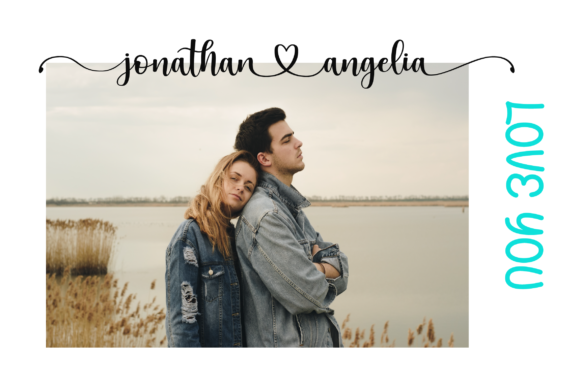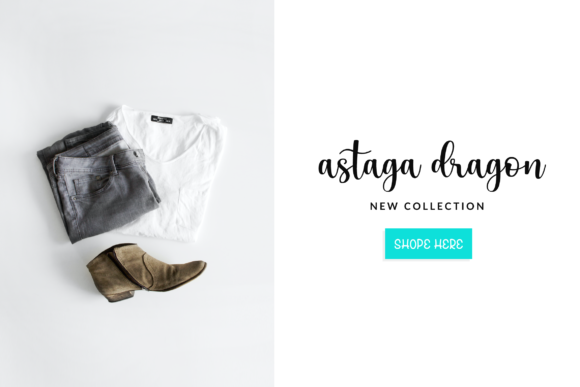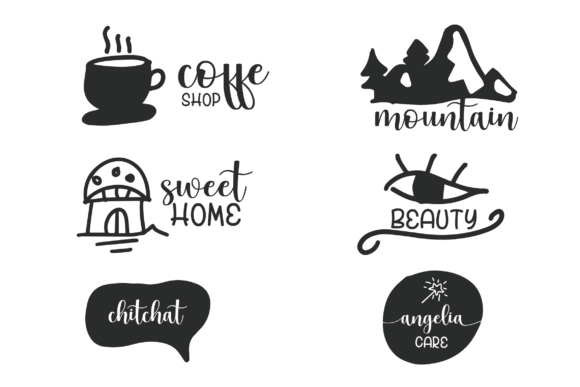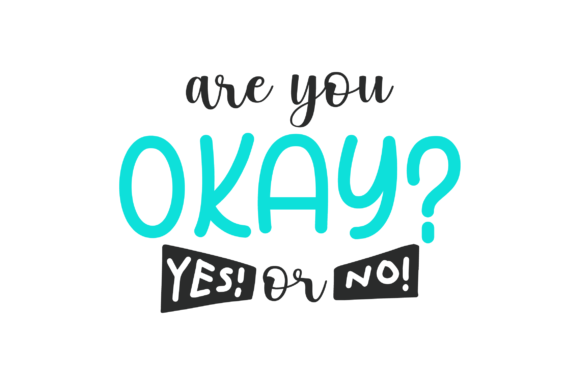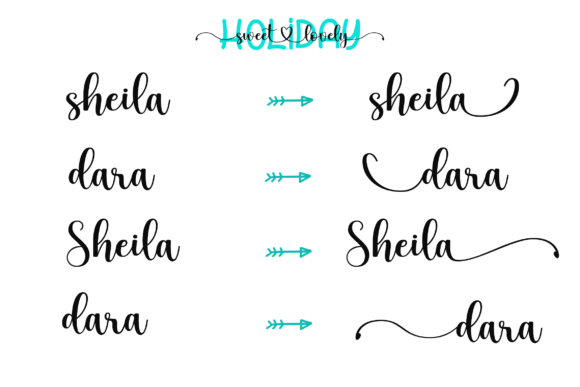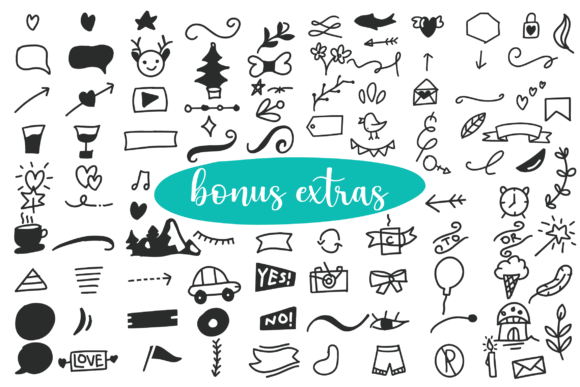
Introduction to Holiday Sweet Lovely Font
Have you ever stumbled upon the perfect font for a design project, only to find yourself spending hours tweaking it to fit your vision? I’ve been there too. But what if I told you that there’s a font that not only fits your design perfectly but elevates it to new heights? Enter the Holiday Sweet Lovely Font, a stunning duo font that’s about to become your go-to design resource.
This beautifully crafted font is a game-changer for any creative project, from wedding invitations to business cards. With its unique, handwritten touch, it adds a personal and elegant feel to any design. And the best part? It’s incredibly versatile, making it perfect for a wide range of designs. Whether you’re a seasoned designer or just starting out, the Holiday Sweet Lovely Font is a valuable addition to your design arsenal.
Key Features of Holiday Sweet Lovely Font
- High-quality, elegant design perfect for creative projects and holiday-themed designs.
- Comes with a transparent background, allowing for easy customization and integration into various design elements.
- Features a unique, hand-drawn style with intricate details and flourishes, making it stand out from other fonts.
Honest Review: Holiday Sweet Lovely Font
I recently had the chance to work with the Holiday Sweet Lovely Font for a creative project, and I must say it was a delightful experience. The font is perfect for those who want to add a touch of sweetness and festivity to their designs.
What works well with this font is its versatility. It’s suitable for a wide range of creative projects, from holiday greeting cards to social media graphics. The font also comes in high quality, making it perfect for printing.
- ✨ High-quality design
- ✨ Suitable for various creative projects
- ✨ Comes with transparent background option
However, there are a few limitations to consider. The font is limited to a specific theme, which might not be suitable for all types of projects. Additionally, the font does not come with a large character set, which could be a drawback for those who need to use special characters.
⚠️ Limited theme suitability
⚠️ Limited character set
Overall, I was impressed with the Holiday Sweet Lovely Font and would definitely recommend it to those who are looking for a high-quality design resource for their holiday-themed projects.
Can I modify the Holiday Sweet Lovely Font?
Yes, you can modify the Holiday Sweet Lovely Font to suit your design needs. Since it’s a vector-based font, you can scale it up or down without losing any quality. However, please note that modifying the font may affect its legibility and overall aesthetic. We recommend using the font as is, or making minor adjustments to maintain its integrity.